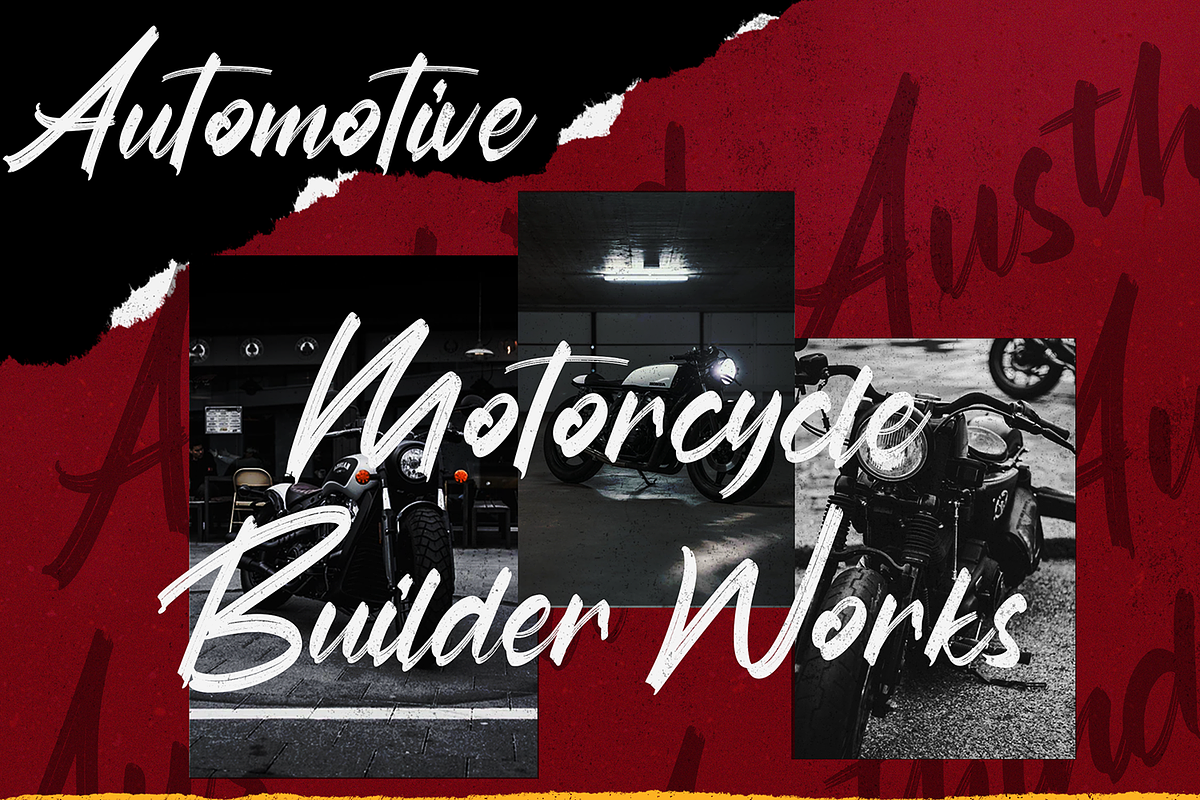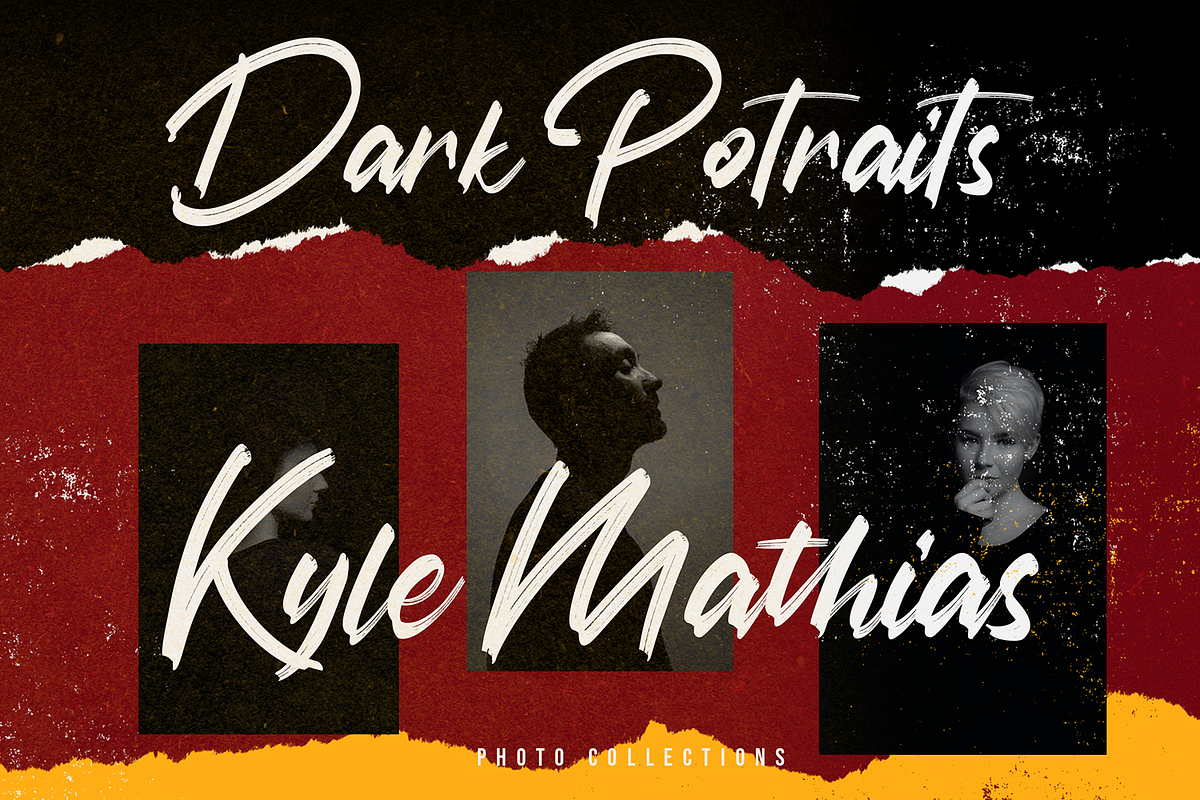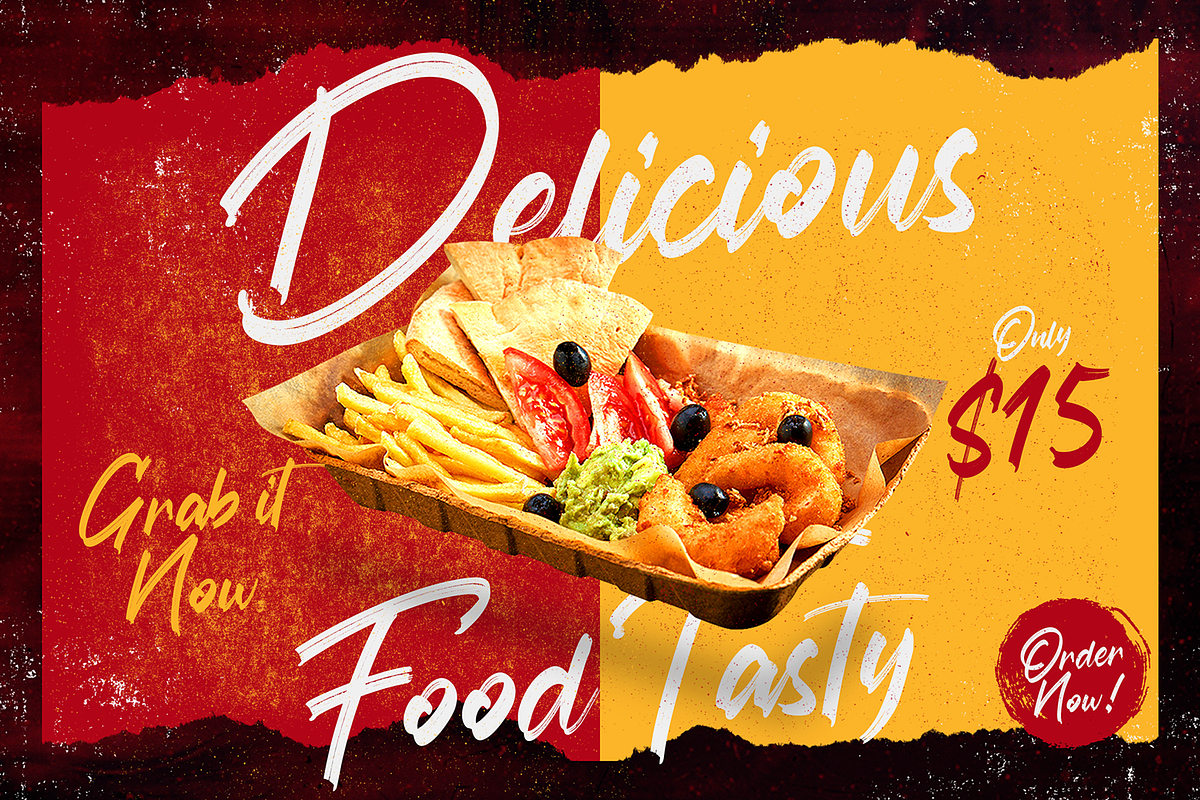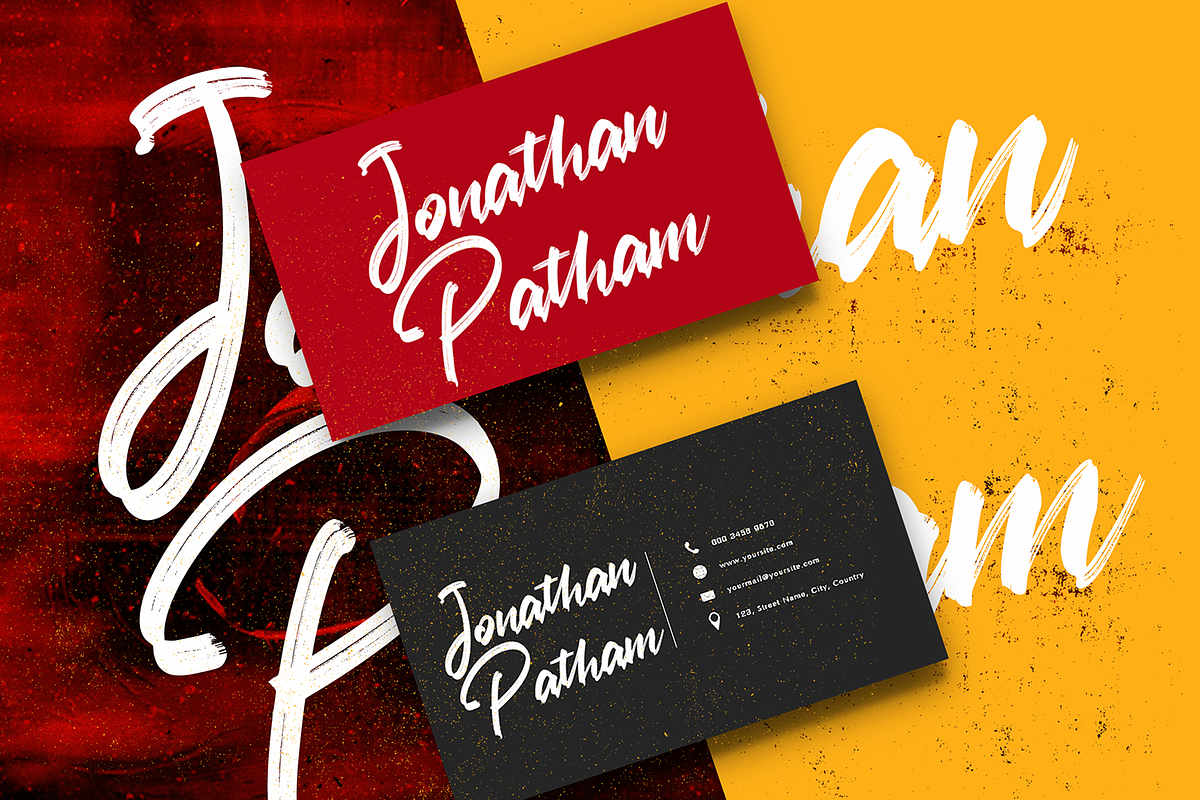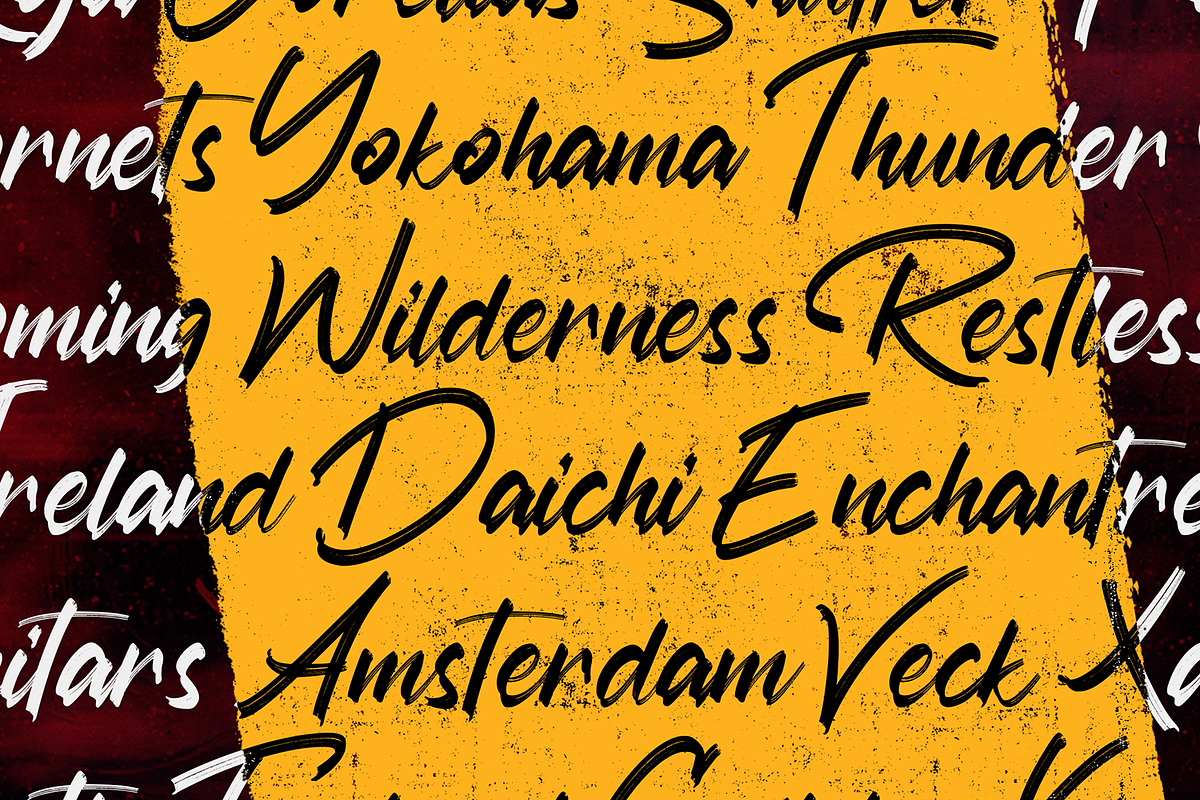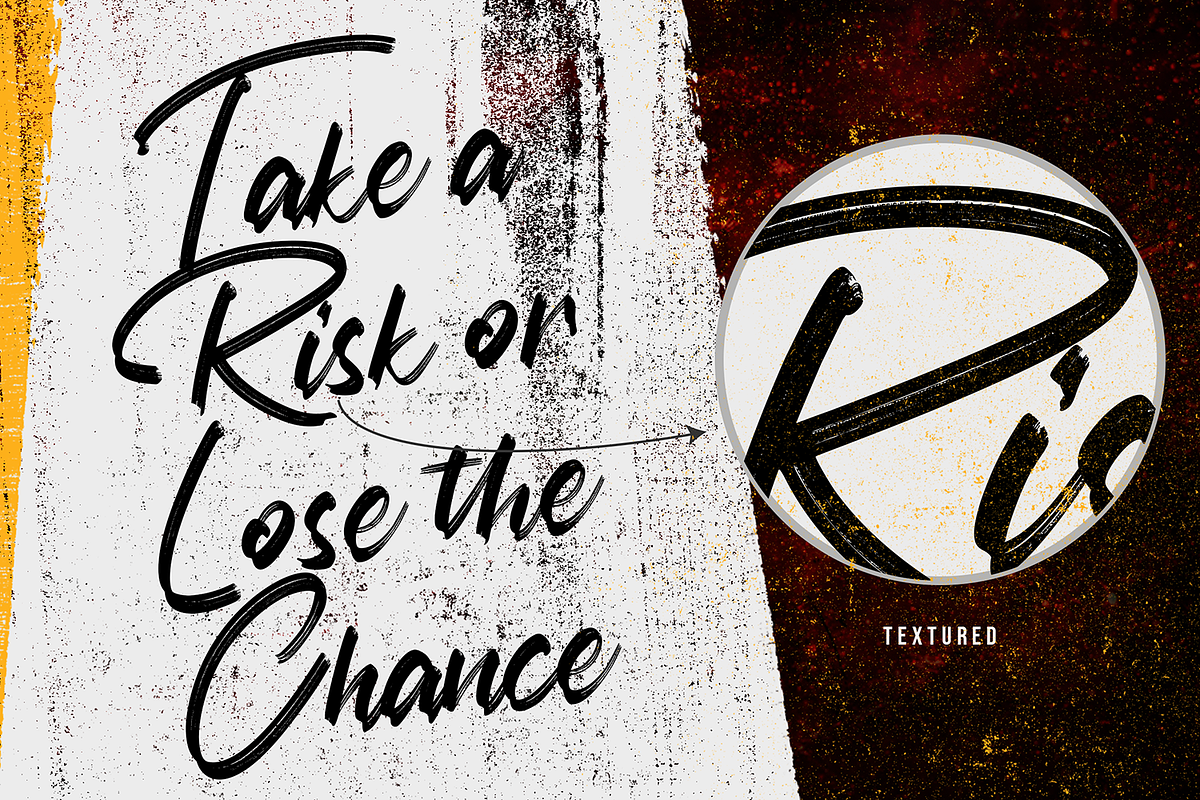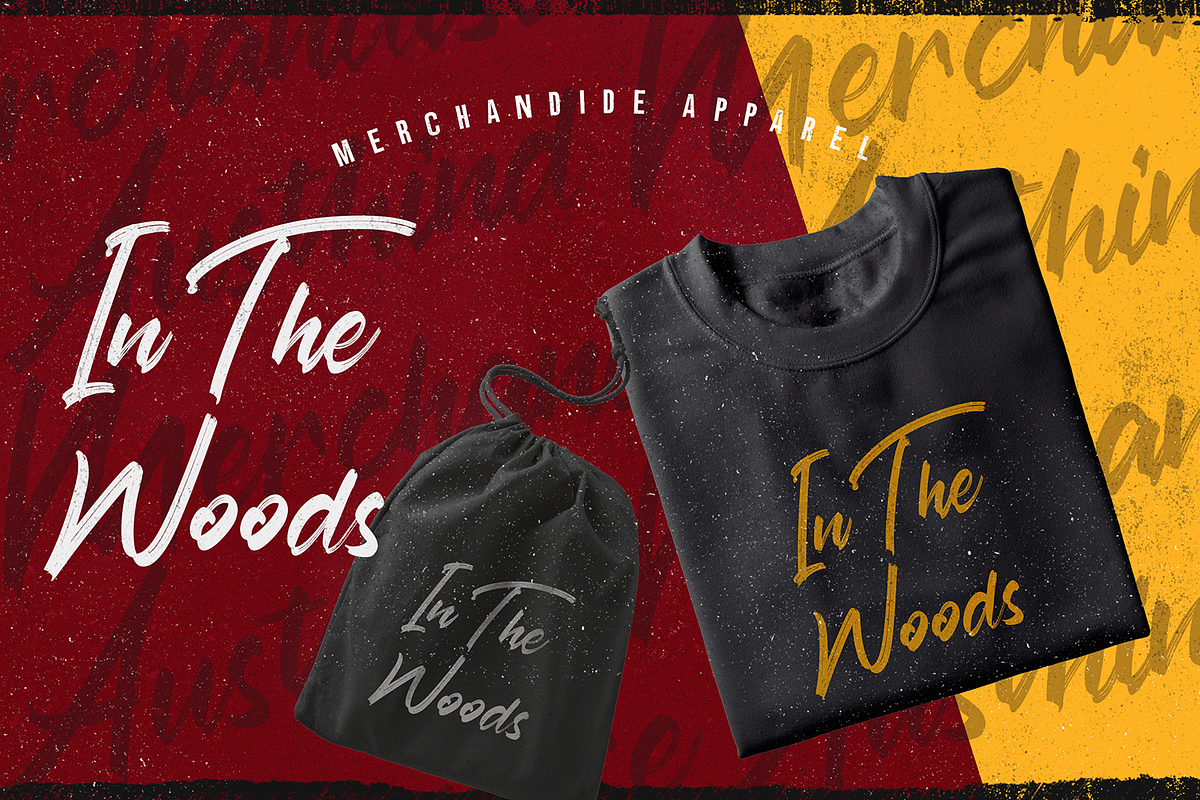
Austhind - Stylish Brush Font
Introducing Austhind - Stylish Brush Font
Austhind is a script font with stylish hand brush style. The Austhind font made with digital brush pen strokes that making this font look authentic and unique concept. This font is perfect for fashion brand, wedding invitation, business card, logo brand, signature, and then calligraphy.